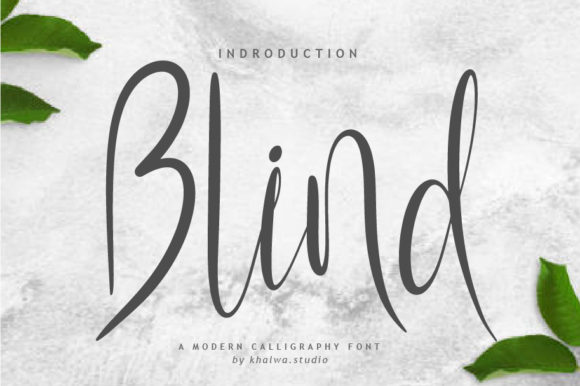
The Magic of Blind Font: A Designer’s New Best Friend
I’ll never forget the time I was working on a logo design project for a boutique brand, and I was stuck on finding the perfect font. The client wanted something that exuded elegance, sophistication, and a touch of whimsy. I scoured the internet, tried out countless fonts, but nothing seemed quite right. That was until I stumbled upon Blind Font, a lovely and timeless handwritten font that instantly captured the essence of the brand. In this article, I’ll share my experience with Blind Font, its features, and how to make the most of it in your designs.
A Personal Review of Blind Font
- ✨ Unique and beautiful touch: Every letter in Blind Font has a distinct character that adds a personal touch to your designs.
- ✅ Timeless appeal: The font’s classic look ensures it won’t go out of style anytime soon.
- 💫 Perfect for branding: Blind Font is ideal for creating eye-catching logos, branding materials, and quotes that leave a lasting impression.
- 🎨 Versatile: The font can be used for a wide range of design projects, from digital graphics to print materials.
While Blind Font is an excellent choice for many design projects, there are a few things to keep in mind:
- ⚠️ Limited multilingual support: Blind Font may not support all languages or special characters, so be sure to check the font’s specifications before using it for a multilingual project.
- 🤔 Not ideal for body text: Due to its elegant, cursive nature, Blind Font may not be the best choice for lengthy body text. It’s better suited for headings, titles, and short paragraphs.
The Story Behind Blind Font
Blind Font was designed with the goal of creating a beautiful, handwritten font that captures the essence of traditional calligraphy. The designer, inspired by classic scripts and elegant typography, crafted Blind Font to be a versatile and timeless font that would add a personal touch to any design project.
Q: What is Blind Font?
A: Blind Font is a lovely and timeless handwritten font that’s perfect for creating eye-catching logos, branding materials, and quotes.
Q: Is Blind Font suitable for body text?
A: While Blind Font is an excellent choice for headings and titles, it may not be the best choice for lengthy body text due to its elegant, cursive nature.